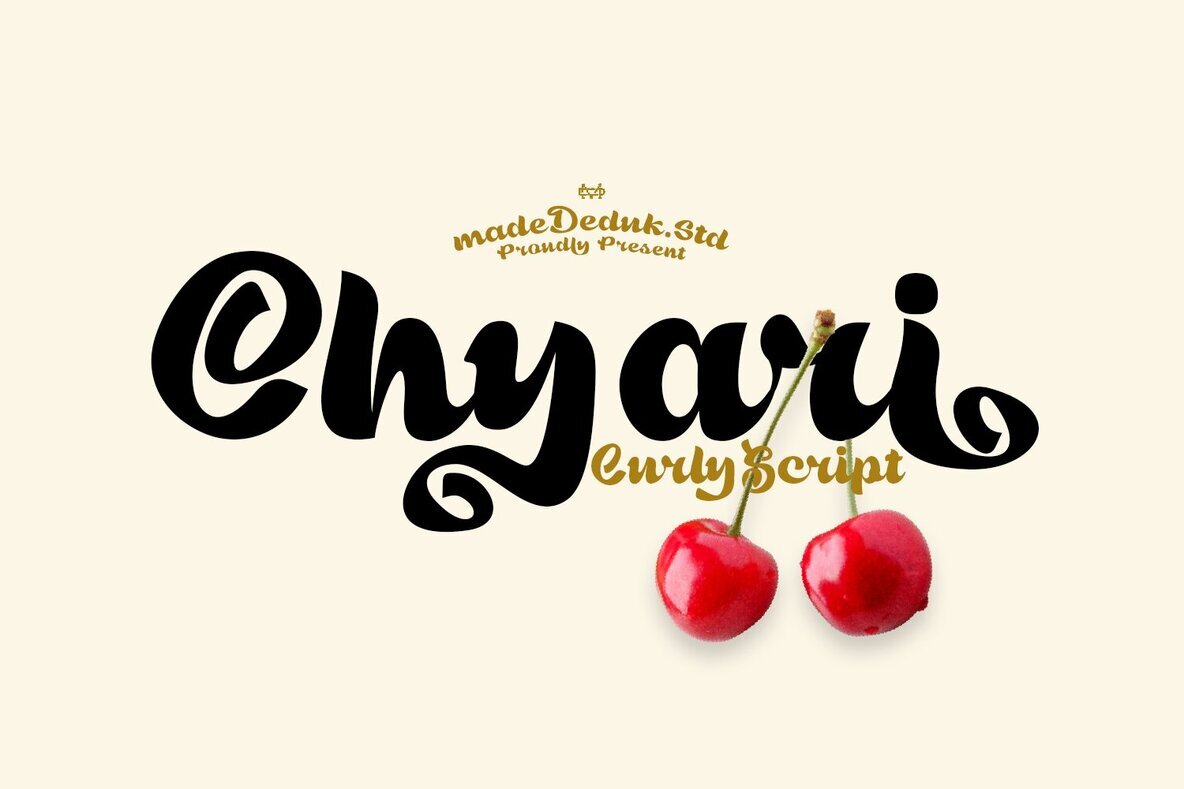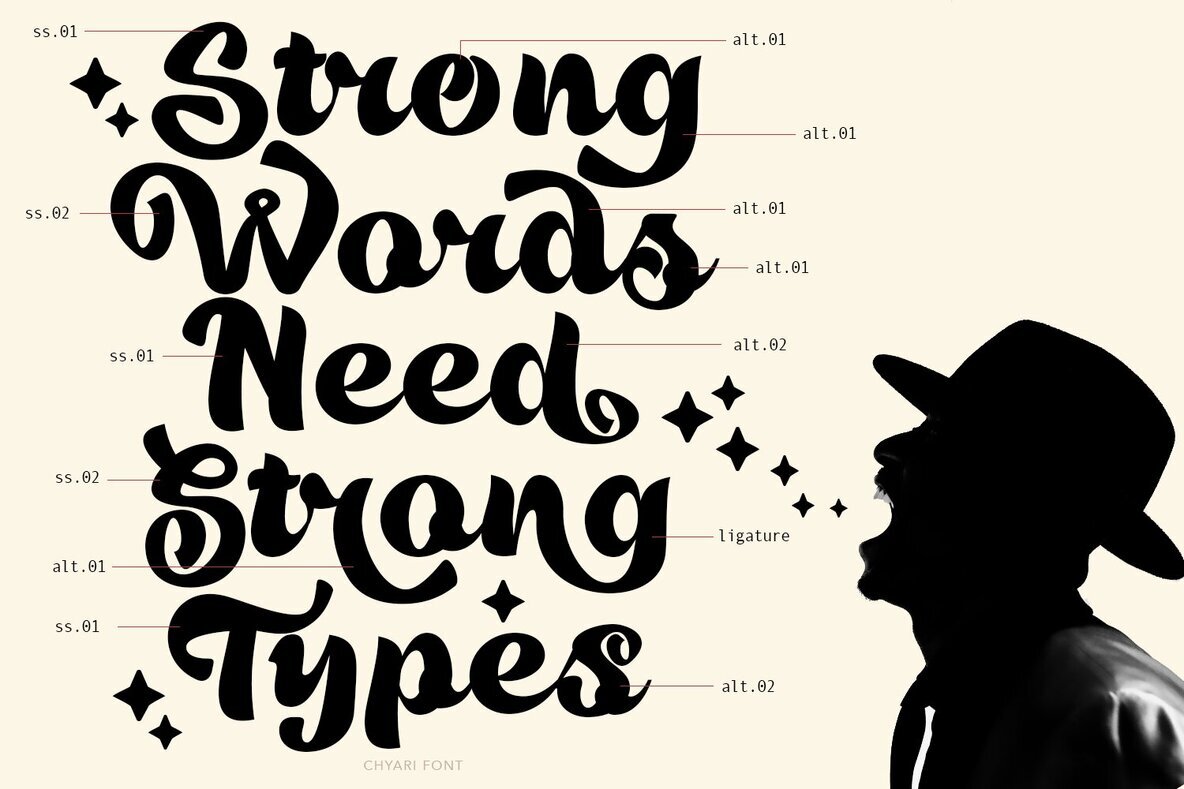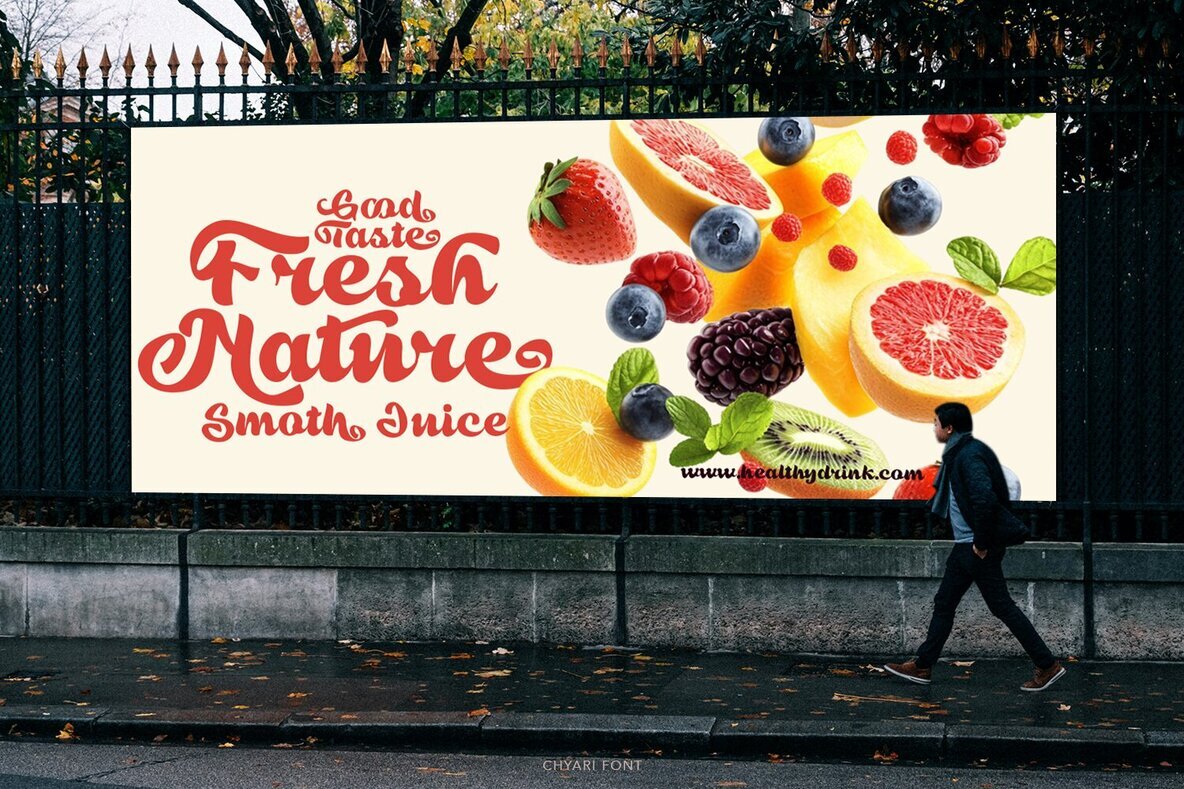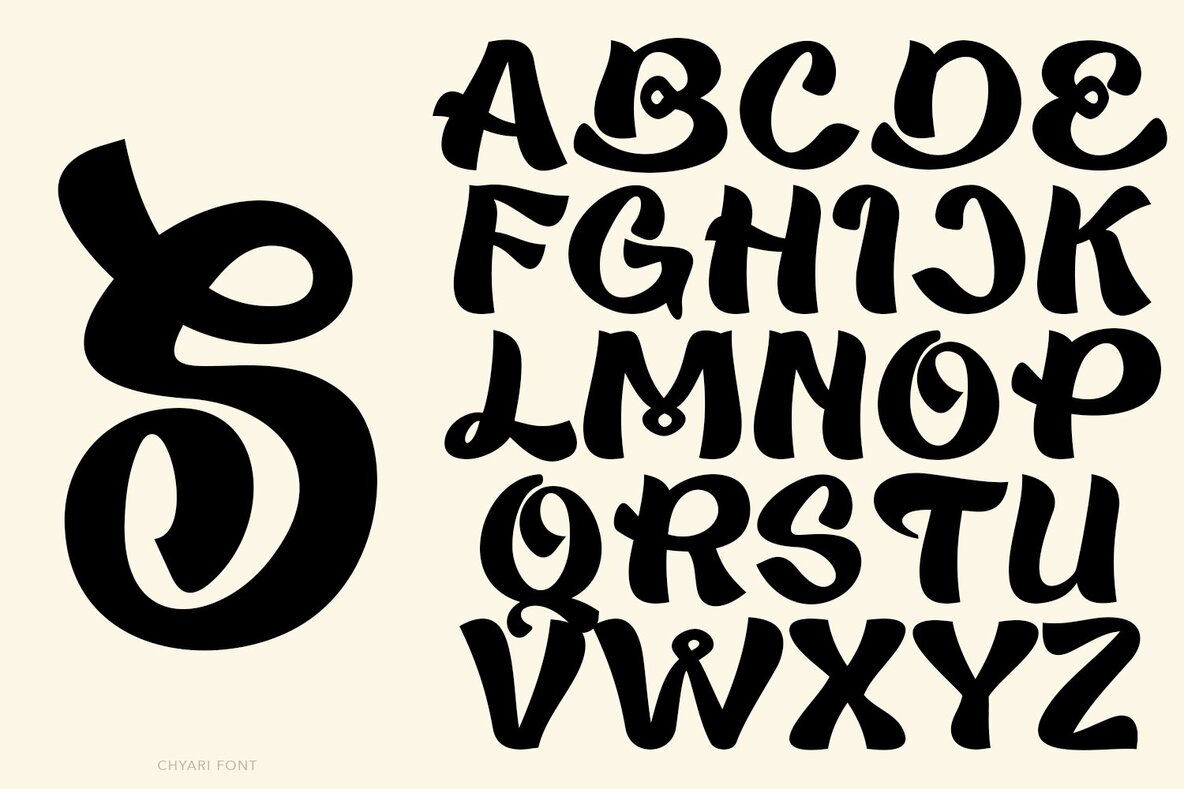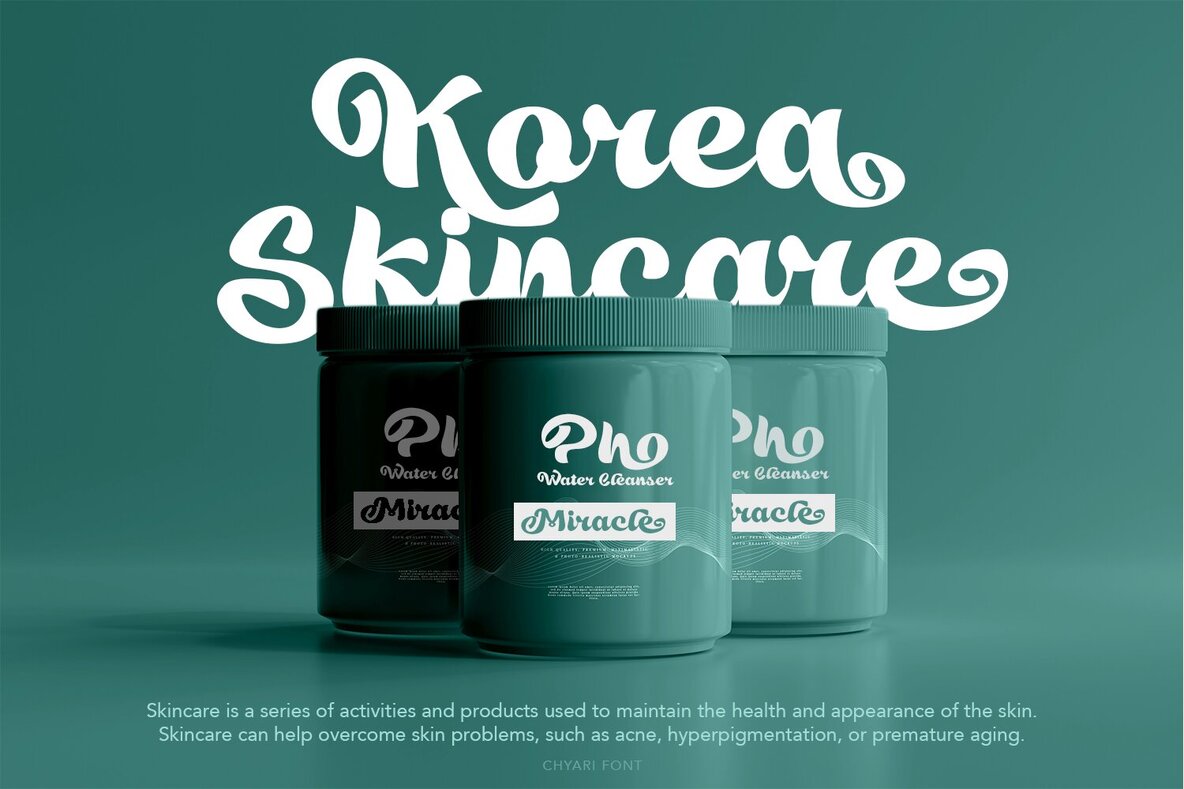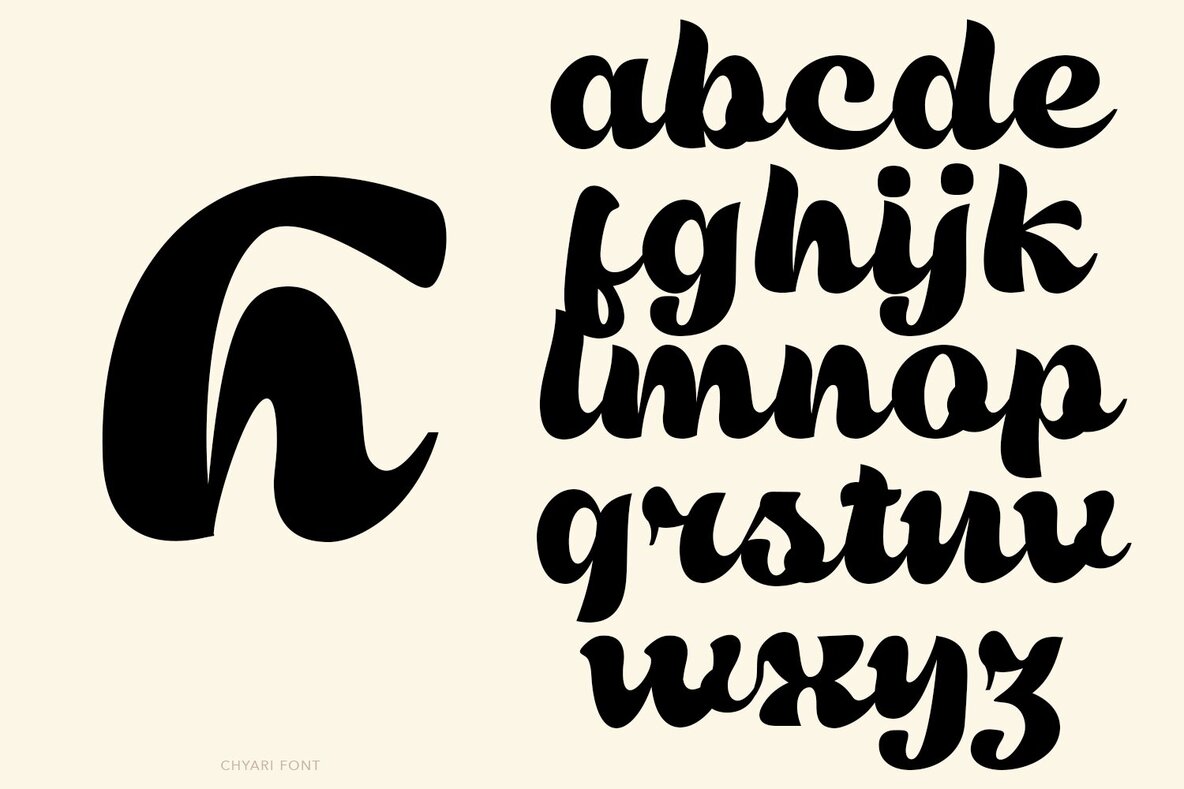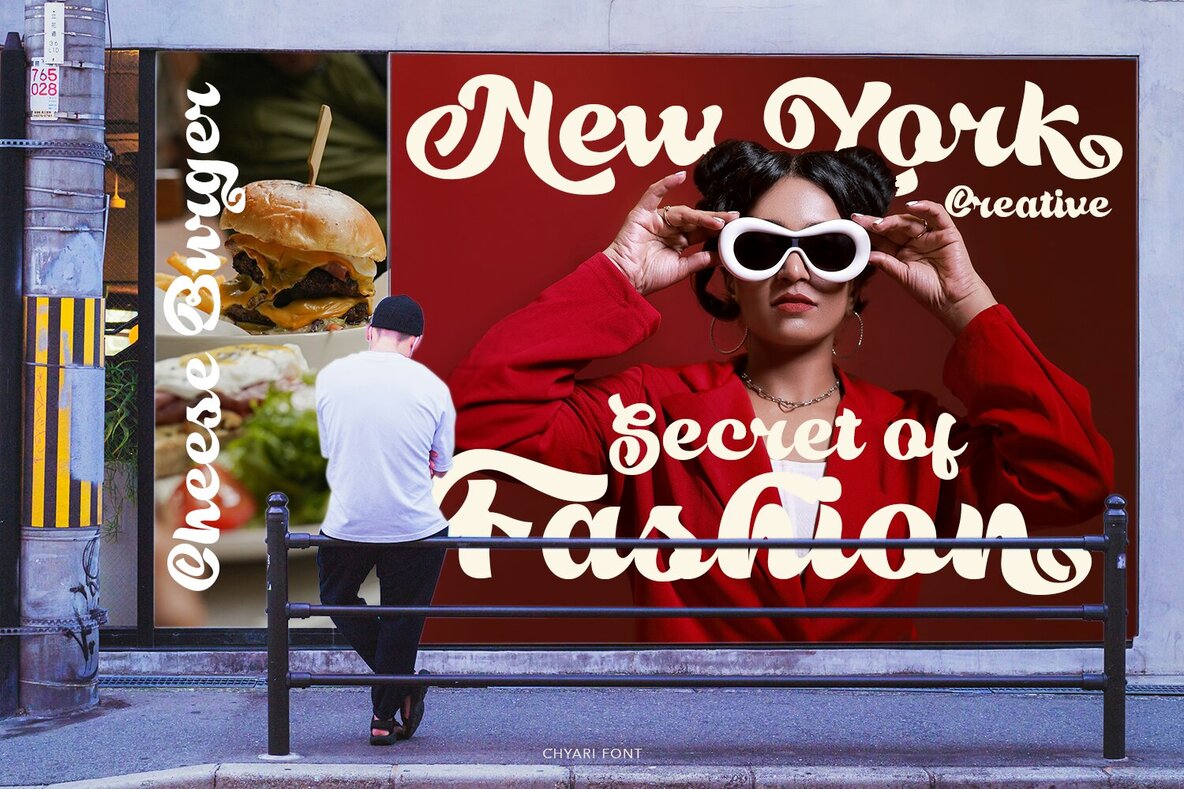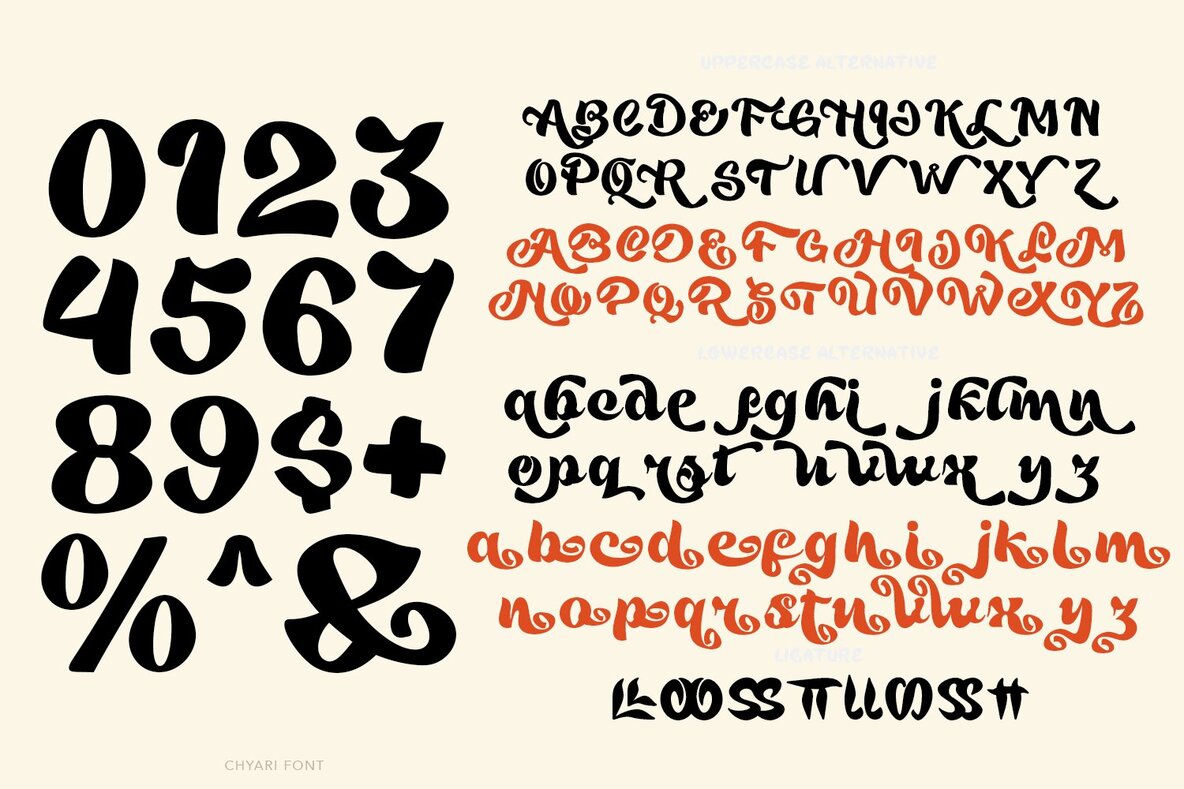
Chyari Font
Chyari
Chyari is an 80s-inspired script font that combines a groovy aesthetic with a touch of elegance. Featuring curly style elements, it offers a variety of alternatives and ligatures, making it a versatile choice for creative projects. Its unique rhythm ensures comfortable reading, making it ideal for diverse applications.